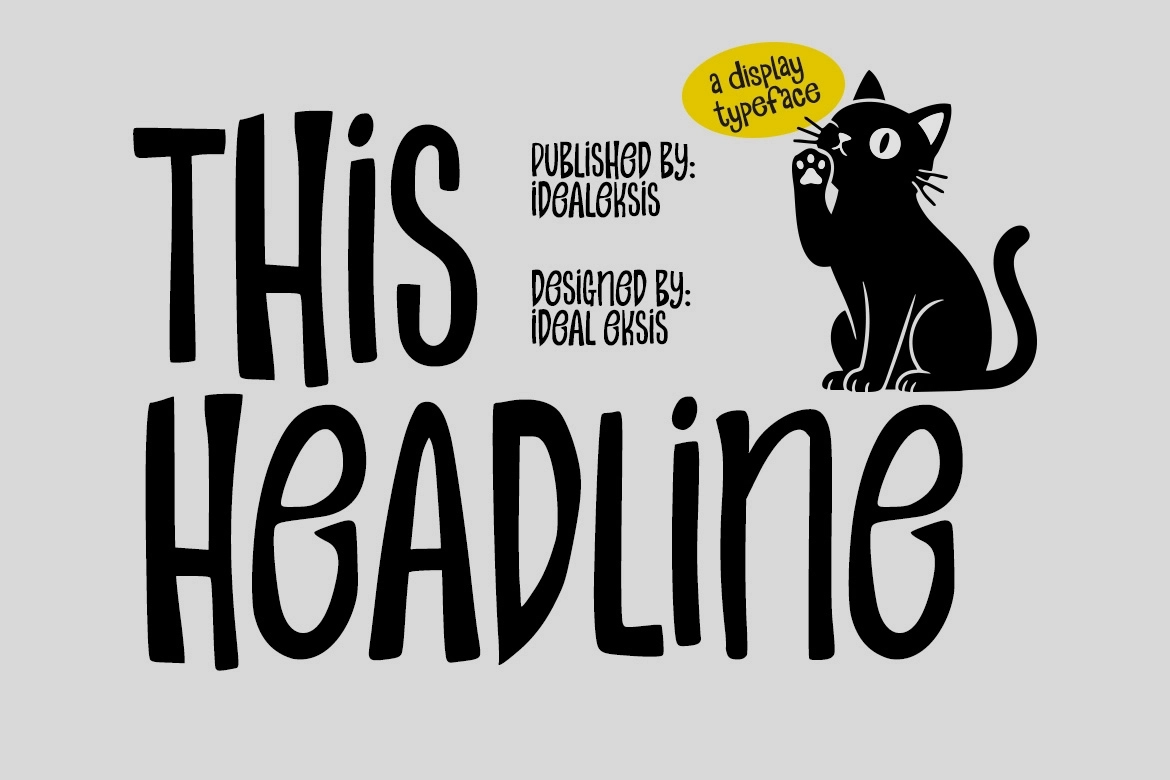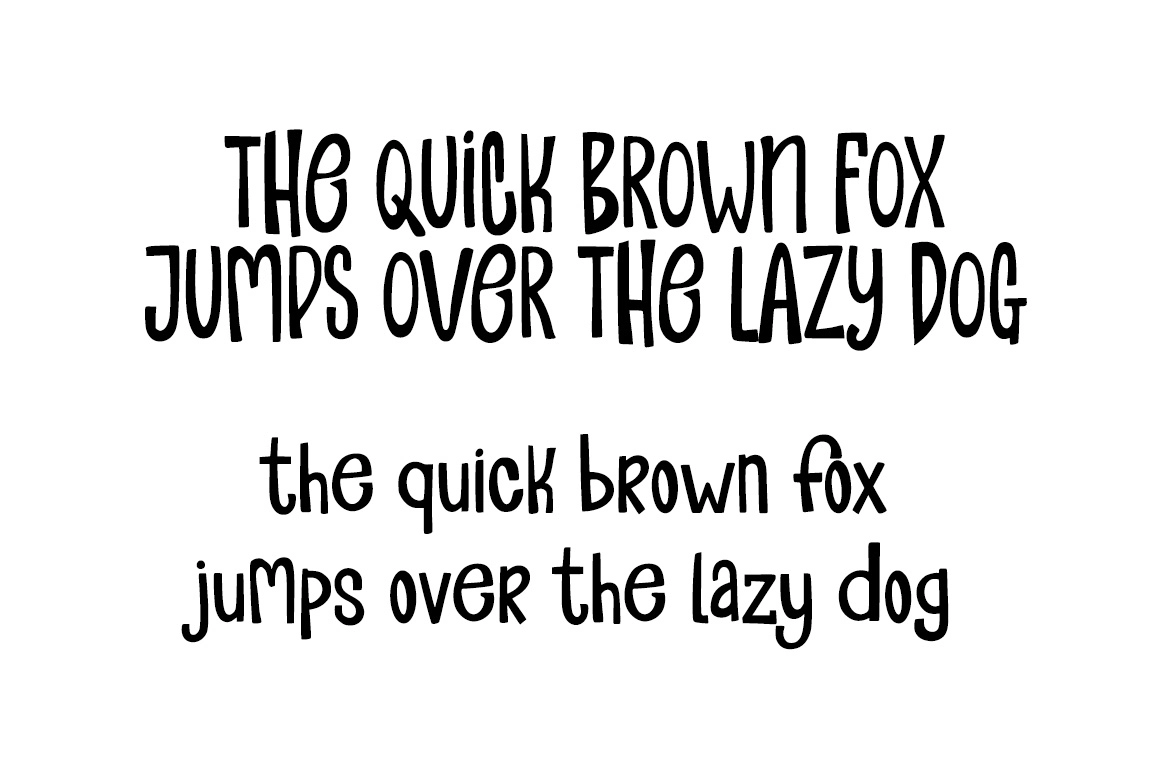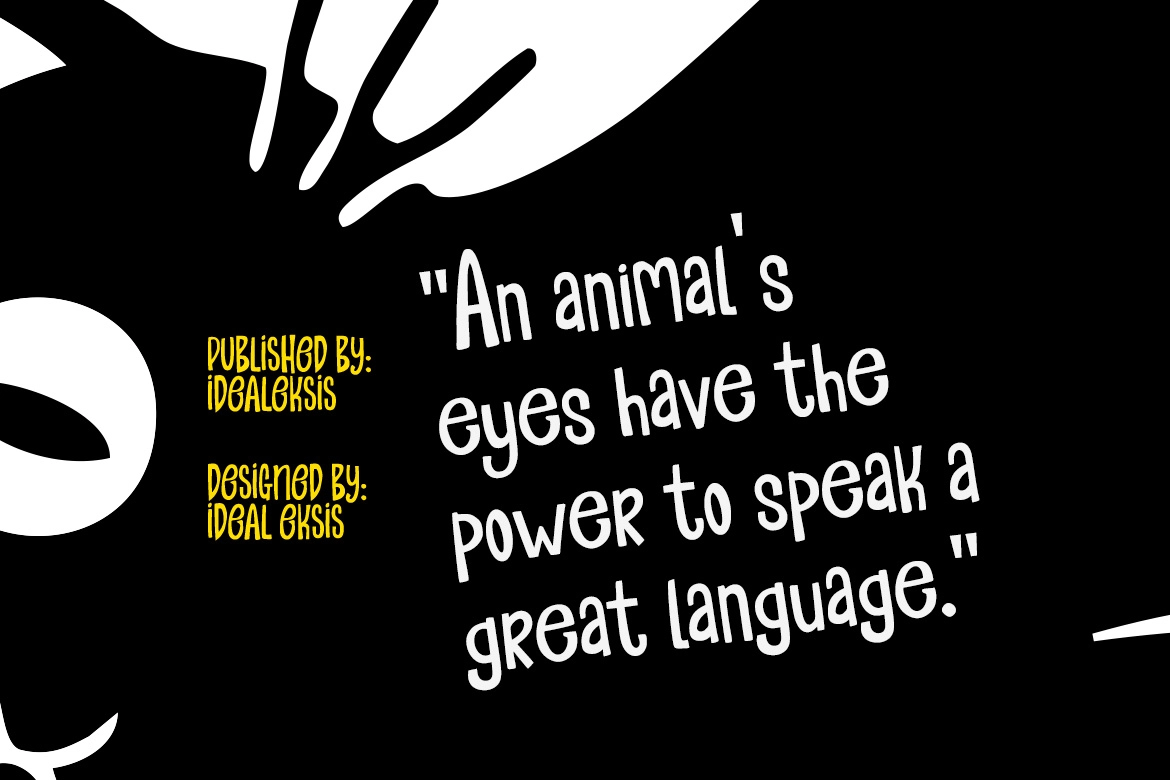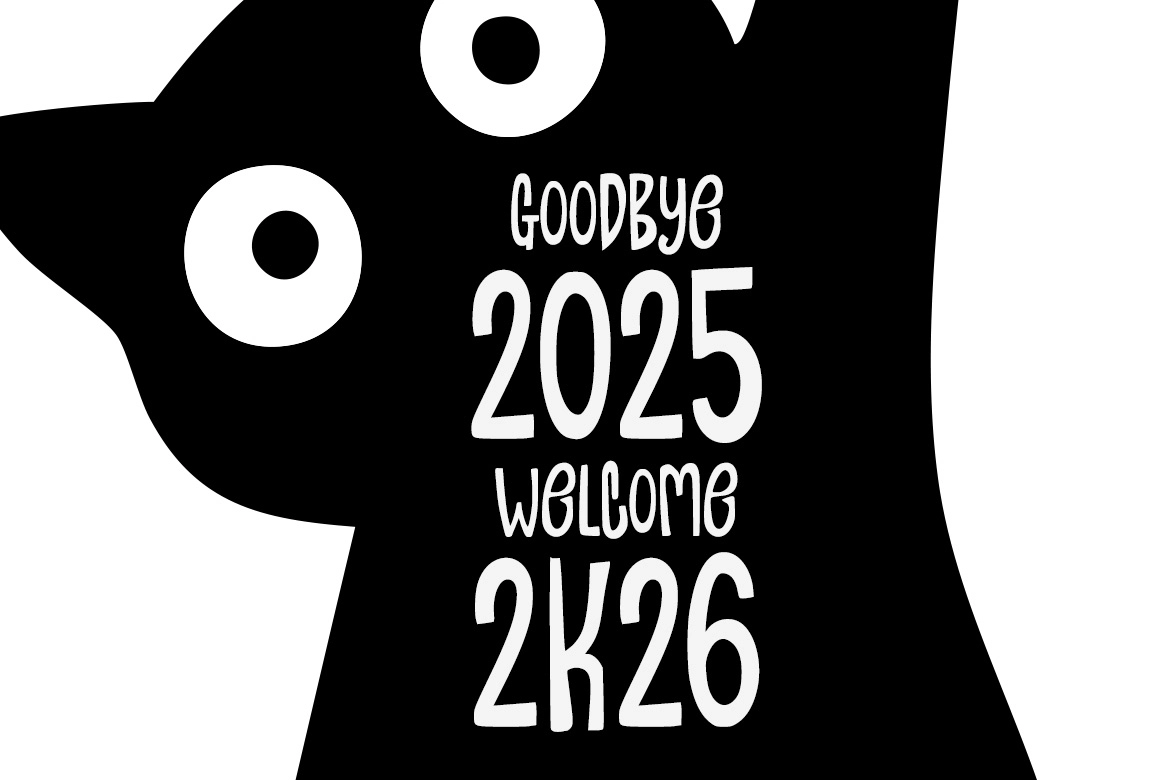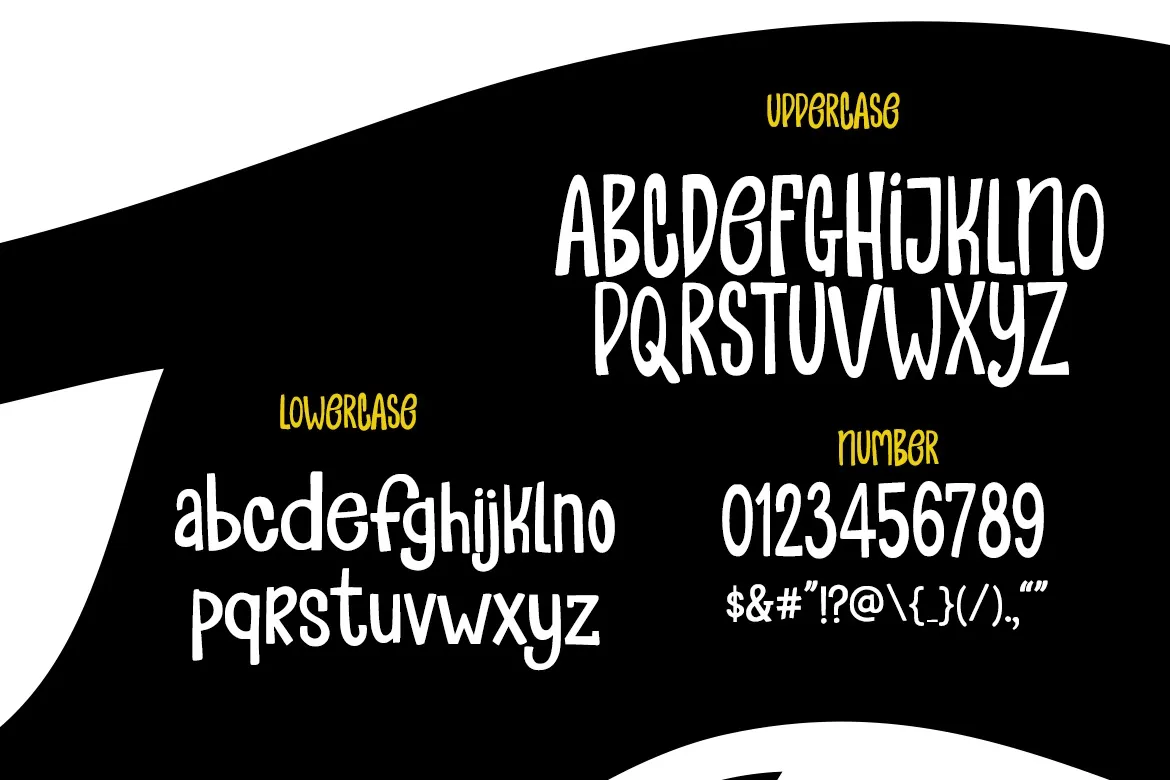
This Headline - Playful Handwritten Display Font
This Headline
This Headline – Playful Handwritten Display Font is a bold and expressive typeface with a lively, hand-drawn character. Its chunky strokes, uneven baseline, and slightly imperfect shapes create a fun and approachable look, making this playful handwritten display font perfect for designs that need personality and warmth.
The rounded forms and bouncy rhythm give it an organic, friendly feel, while the strong weight ensures excellent readability in headlines and short texts. Whether you're creating kids-themed designs, posters, branding, or social media graphics, This Headline brings charm and energy to every layout.